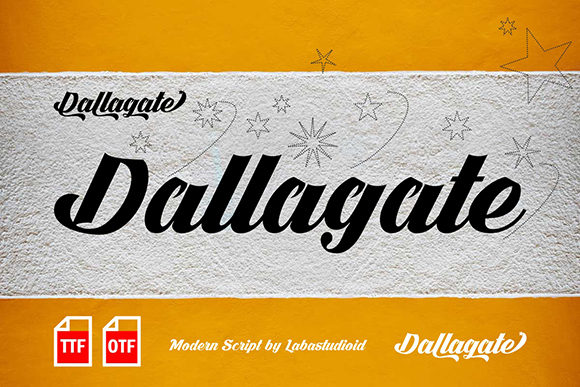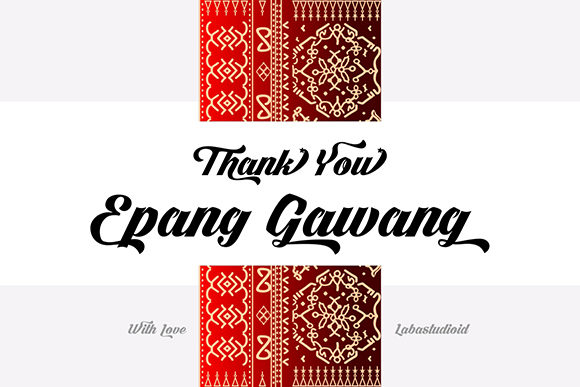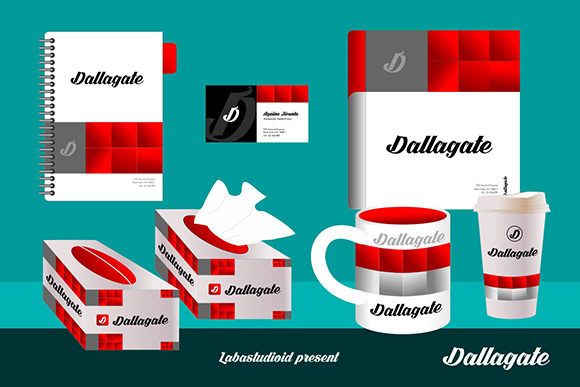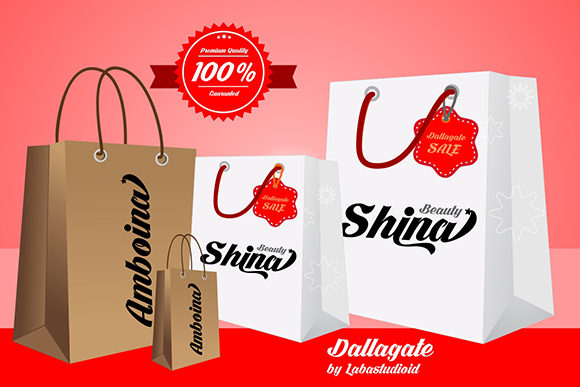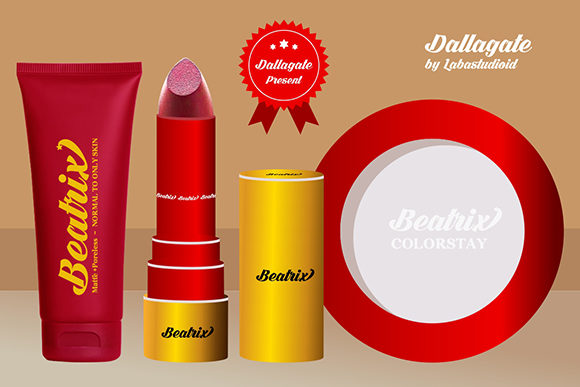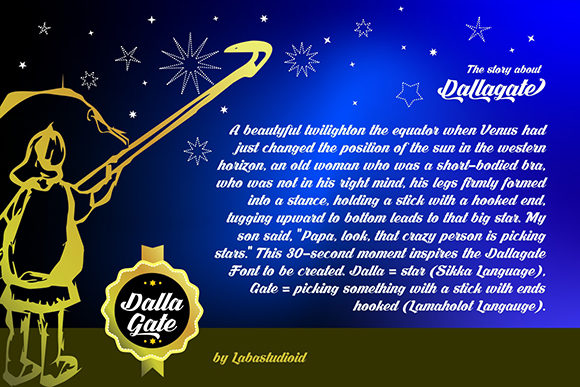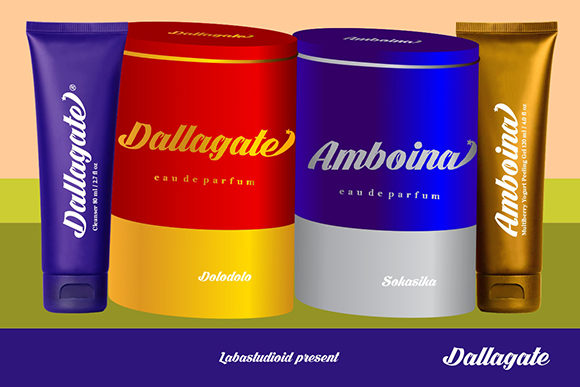
Dallagate Font
About Dallagate Font
Dallagate is an exquisite handwritten font, masterfully designed to become a true favorite. It maintains its classy calligraphic influences while feeling contemporary and fresh. Fall in love with it and bring your projects to the highest levels!